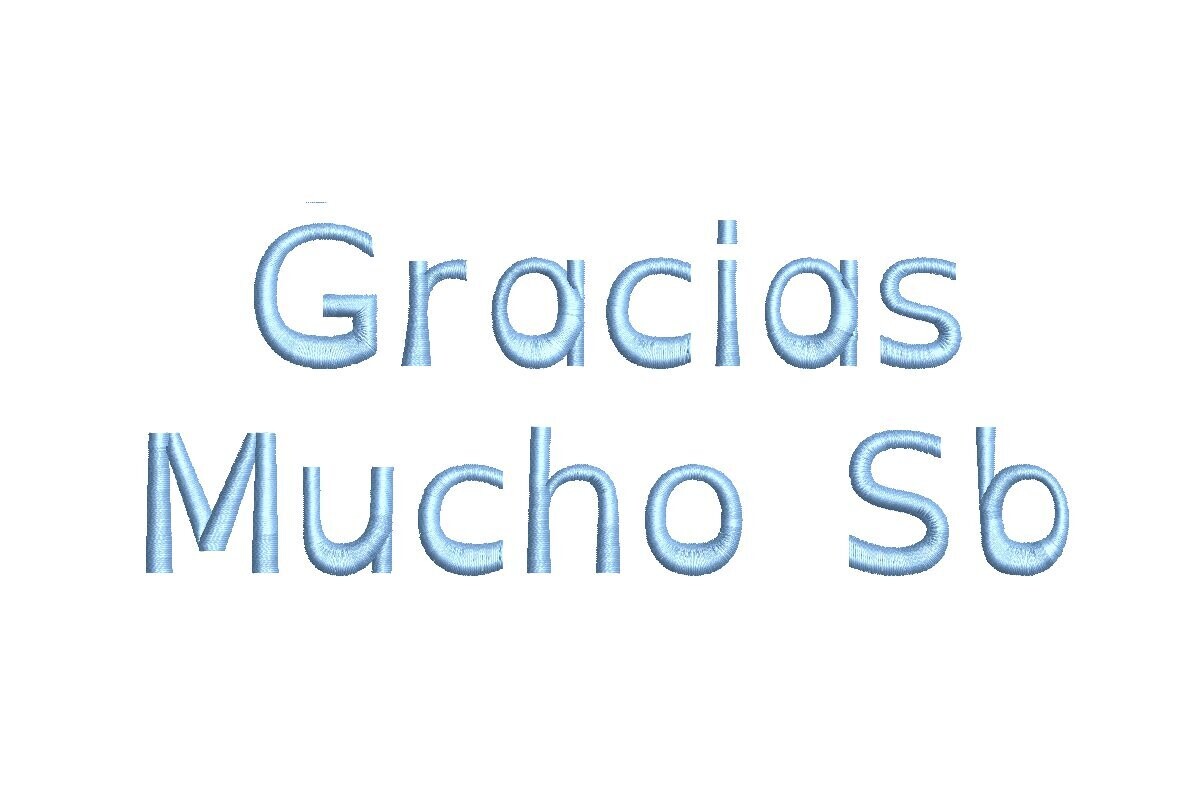
Introducing the Gracias Mucho SB ESA font, your ultimate tool for expressive embroidery. Designed for seamless compatibility with Wilcom Studio e4.5.6 and Hatch 3 versions and up, this font effortlessly integrates into your digitizing process. Gracias Mucho SB ESA offers impeccable precision and versatility, making it ideal for monograms, bold lettering, and intricate designs. Elevate your embroidery projects with its exceptional quality and expressive style. Craft professional and captivating designs effortlessly on various fabrics and items. Don't miss the opportunity to enhance your embroidery journey. Choose the Gracias Mucho SB ESA font today and unlock a world of creativity and precision with every stitch, setting new standards for your embroidery excellence.